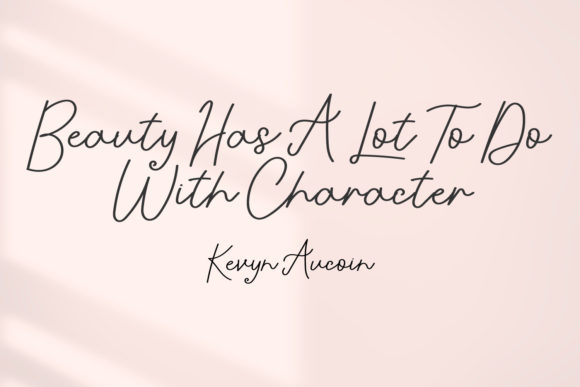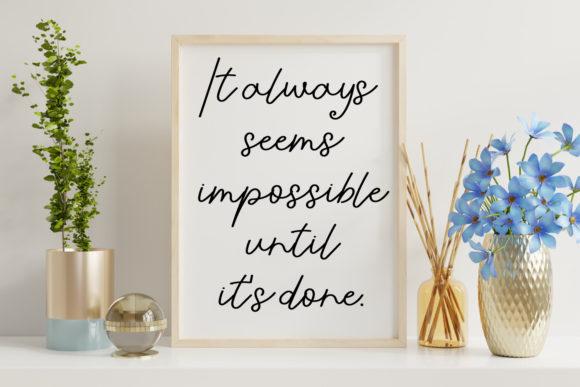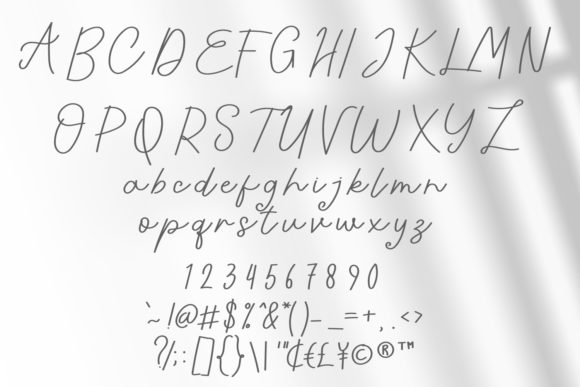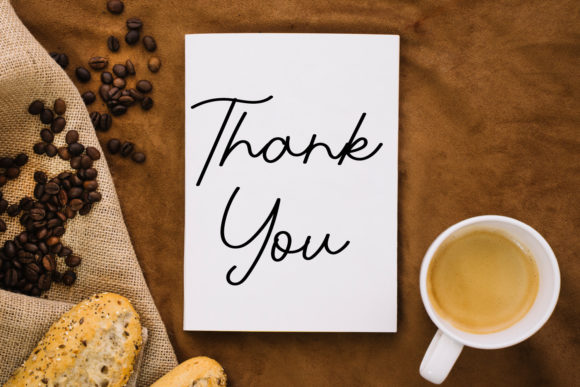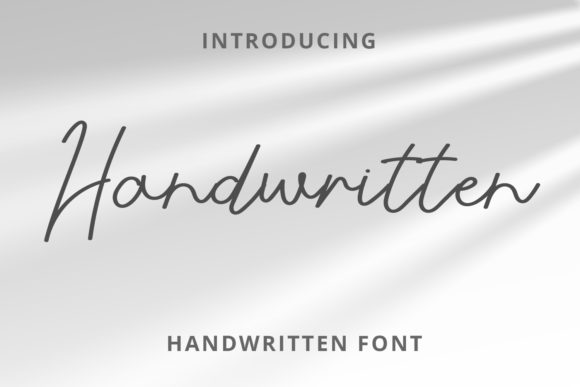
Introducing Handwritten Font: Elevate Your Design with Whimsy and Luxury
Are you looking for a font that adds a touch of elegance and playfulness to your design projects? Look no further than Handwritten Font, a sweet, whimsical, flowing, and thin script font that is sure to capture the hearts of designers and crafters alike. With its unique characters that dance along the baseline, this font is perfect for adding a luxury spark to any design project you wish to create.
The Charm of Handwritten Font
Handwritten Font is a beautiful, hand-crafted script font that exudes a sense of sophistication and whimsy. Its flowing lines and delicate curves make it perfect for a variety of design projects, from wedding invitations and branding materials to packaging and digital media. The font’s characters are carefully designed to dance along the baseline, creating a sense of movement and energy that adds visual interest to any design.
Key Features of Handwritten Font
• Sweet and Whimsical: Handwritten Font has a playful, whimsical feel that adds a touch of personality to any design project.
• Flowing and Thin: The font’s flowing lines and delicate curves create a sense of elegance and sophistication.
• Luxury Spark: With its unique characters and dancing baseline, Handwritten Font adds a touch of luxury to any design project.
• Versatile: This font is perfect for a variety of design projects, from wedding invitations and branding materials to packaging and digital media.
Why Choose Handwritten Font?
There are many reasons why designers and crafters choose Handwritten Font for their design projects. Here are just a few:
• Unique and Eye-Catching: Handwritten Font is a one-of-a-kind font that adds a touch of personality to any design project.
• Elegant and Sophisticated: The font’s flowing lines and delicate curves create a sense of elegance and sophistication.
• Easy to Read: Despite its whimsical feel, Handwritten Font is easy to read and understand, making it perfect for body text and headlines.
• Highly Versatile: This font can be used for a wide range of design projects, from print materials to digital media.
How to Use Handwritten Font in Your Design Projects
Using Handwritten Font in your design projects is easy and straightforward. Here are a few tips to get you started:
• Pair it with Bold Fonts: Pair Handwritten Font with bold fonts to create a striking contrast that adds visual interest to your design.
• Use it for Headlines and Titles: Handwritten Font is perfect for headlines and titles, where its whimsical feel and elegant curves can add a touch of luxury.
• Add it to Your Branding Materials: Use Handwritten Font in your branding materials, such as business cards and brochures, to add a touch of personality and whimsy.
• Experiment with Colors and Textures: Experiment with different colors and textures to add depth and visual interest to your design.
In conclusion, Handwritten Font is a beautiful, whimsical, and elegant script font that is perfect for adding a touch of luxury to any design project. With its unique characters, flowing lines, and delicate curves, this font is sure to capture the hearts of designers and crafters alike. Whether you’re looking to add a touch of whimsy to your wedding invitations or create a bold and eye-catching brand identity, Handwritten Font is the perfect choice.